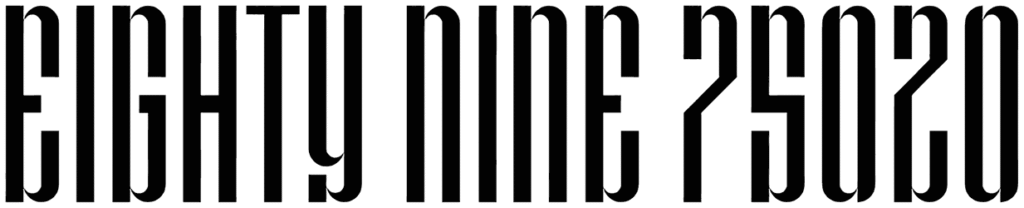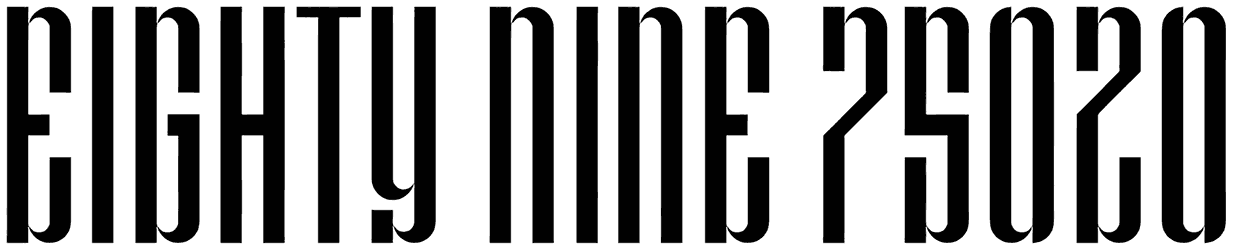
Eighty Nine 75020 Font
A perfect font is essential to level up your text-based layouts, that’s why we’ve uploaded Eighty Nine 75020 for you. This techno font works great for digital screens, apps, games, and so forth. But remember this font doesn’t support small letters. Tap on the download button right away and inspire your clients. Do you crave more? Dive into our library and pick your favorite fonts.